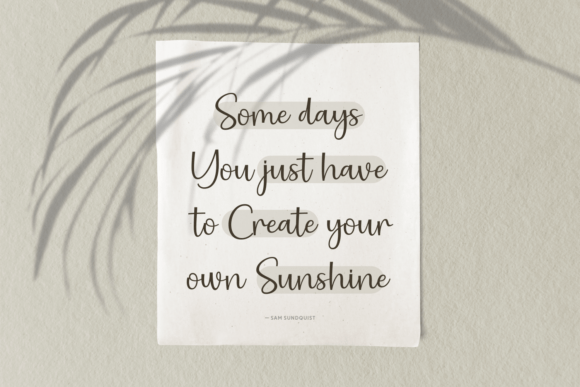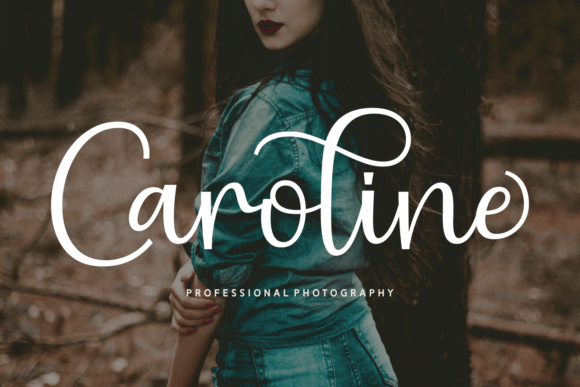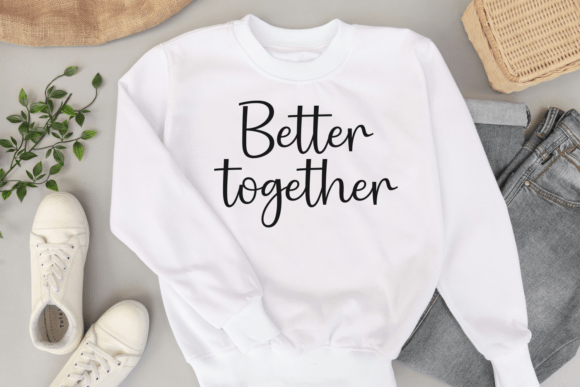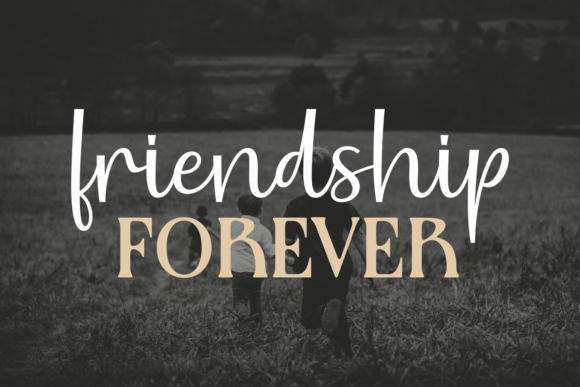
Introduction to Magelia Font
Have you ever stared at a blank page, struggling to find the perfect font to convey the essence of your creative project? For many designers, this moment of uncertainty can be frustrating, but it’s also an opportunity to discover a game-changing design resource that elevates their work to new heights. That’s where the Magelia Font comes in – a refined and sophisticated calligraphy font that adds an air of elegance and sophistication to any project.
Whether you’re designing a luxurious wedding invitation, a high-end brand identity, or a stunning piece of editorial content, the Magelia Font is the perfect addition to your design toolkit. Its flowing, delicate letterforms and natural hand-drawn curves exude a sense of timeless charm and artistic beauty, making it a valuable asset for any designer looking to create high-quality, visually stunning work.
Magelia Font
- Unique characteristics: Magelia Font boasts a unique blend of elegance and sophistication, making it perfect for luxury brands and high-end designs.
- Designed to be versatile, Magelia Font is suitable for a variety of creative projects, from logos and branding to packaging and advertising materials.
Honest Review: Magelia Font
I recently came across the Magelia Font, a design resource that caught my attention. As a designer, I’m always on the lookout for high-quality fonts to enhance my creative projects. The Magelia Font did not disappoint.
What works well about this font is its unique, elegant design. ✨ The subtle curves and lines give it a sophisticated feel that’s perfect for a variety of applications, from branding to editorial content. The font is also available as a free download, which is a definite plus for designers on a budget.
The Magelia Font has a transparent background, making it easy to integrate into any design. It’s also highly versatile, with a range of weights and styles to choose from.
- Unique, elegant design
- Highly versatile with multiple weights and styles
While the Magelia Font is a great addition to any design arsenal, there are a few limitations to consider. ⚠️ The font may not be suitable for extremely small font sizes, as the details can get lost. Additionally, the font’s elegance may not be the best fit for more playful or casual projects.
Tips for Getting the Most Out of Magelia Font
Experiment with different font sizes, colors, and styles to achieve the desired look for your creative project. Use Magelia Font in combination with other design elements to create a visually appealing design.
Magelia Font is suitable for various design projects, including graphic designs, digital art, and typography-based projects. It’s an excellent choice for designers looking for a high-quality, free font with a transparent background.